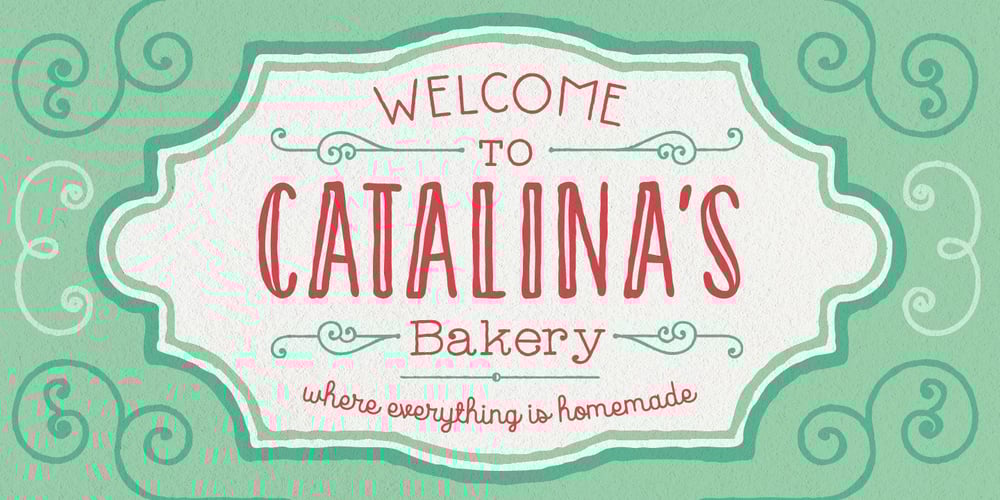
Catalina Font Family was designed by Kimmy Kirkwood and published by Kimmy Design. Catalina contains 32 styles and family package options. Earlier this year I visited a bakery in Newport Beach, CA and fell in love with the organic design and typography of the place. Hand-drawn menus, table cards, chalkboards, and wall quotes surrounded the charming spot. It inspired me to create a new font family based on the combination of hand drawn fonts. Included in this package are 5 font families, with 2 graphic ornament fonts. Each font family contains at least a light, medium and bold. Here is a breakdown of what’s cookin’ at Catalina’s Bakery: Catalina Anacapa: Tall and skinny, this font comes in 3 weights for both sans and slab serif styles. It includes contextual alternatives (giving 3 versions of each letter), stylistic alternatives for select letters (A, K, P, Q, R, Y) and also includes Small Caps. Catalina Avalon: Based off Anacapa, this sub family has a high contrasting line weight. It comes in light, regular and bold as well as an inline alternative for both sans and slab serif styles. Avalon also includes opentype features such as contextual alternatives (giving 3 versions of each letter), stylistic alternatives for select letters (A, K, P, Q, R, Y) and small caps for each letter. Catalina Clemente: In a more standard width, Clemente is one of the two sub families that can be used for paragraph text as well as headlines. It’s organically geometric in style and comes in ALL CAPS and lowercase, includes upright and custom italics, and has the opentype feature giving 3 versions of each letter. Catalina Script: A great compliment with the display sub-families, Catalina Script rounds out the package with a hand-drawn cursive flair. It includes contextual alternatives (giving 2 variations to each letter) as well as stylistic alternatives for many of the capital and lowercase letters. It has special ligatures for some letter combinations, and titling alternatives for all the capital letters. Catalina Typewriter: The second of the paragraph text sub-families, this typewriter inspired hand-drawn font family works great as either a display or paragraph text. It has contextual alternatives with 3 versions of each letter, and comes in both upright and custom italics versions. Catalina Extras! These two fonts go perfectly with the Catalina Family. They includes borders, frames, arrows, banners, flourishes and more. Catalina Flourish has all of it’s options in a light and bold style, to use the light version type all lowercase letters, then to make something bold, used it’s uppercase (or shift+) characters. For a breakdown of graphic/letter correlation, see the breakdown PDF. All of Catalina was drawn by the same hand, using the same ink and technique. While they contrast in their type styles, they work together perfectly to create one cohesive font family.